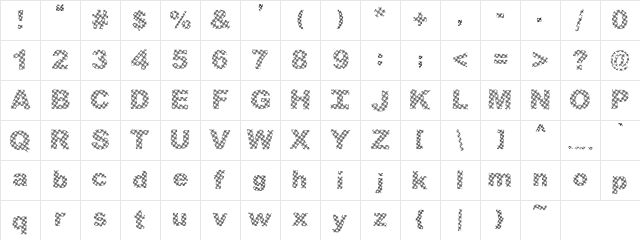
Complete PC Lined Plaid Regular glyph index. Displaying only characters natively supported by PC Lined Plaid Regular font.
PC Lined Plaid is a composed and adaptable typeface that performs quietly and consistently across a wide range of design contexts.